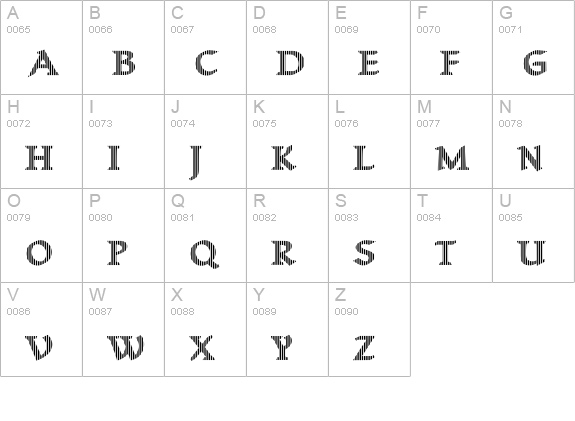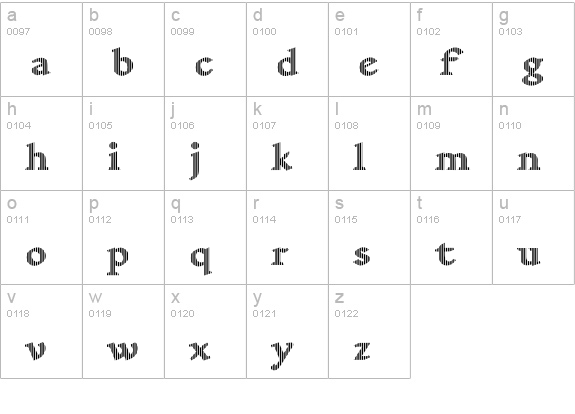
YngreEBStripe Font Details
YngreEBStripe font is a modern and stylish typeface that adds a unique touch to any design project. With its sleek lines and contemporary feel, this font is perfect for creating eye-catching headlines, logos, and branding materials. The YngreEBStripe font features a clean and sophisticated look that is sure to impress. Best of all, this font is available for free download at FontsMarket.com, making it accessible to everyone looking to elevate their design projects with a touch of elegance and creativity. Don't miss out on the opportunity to enhance your work with this stunning typeface - download YngreEBStripe font today and see the difference it can make in your designs!